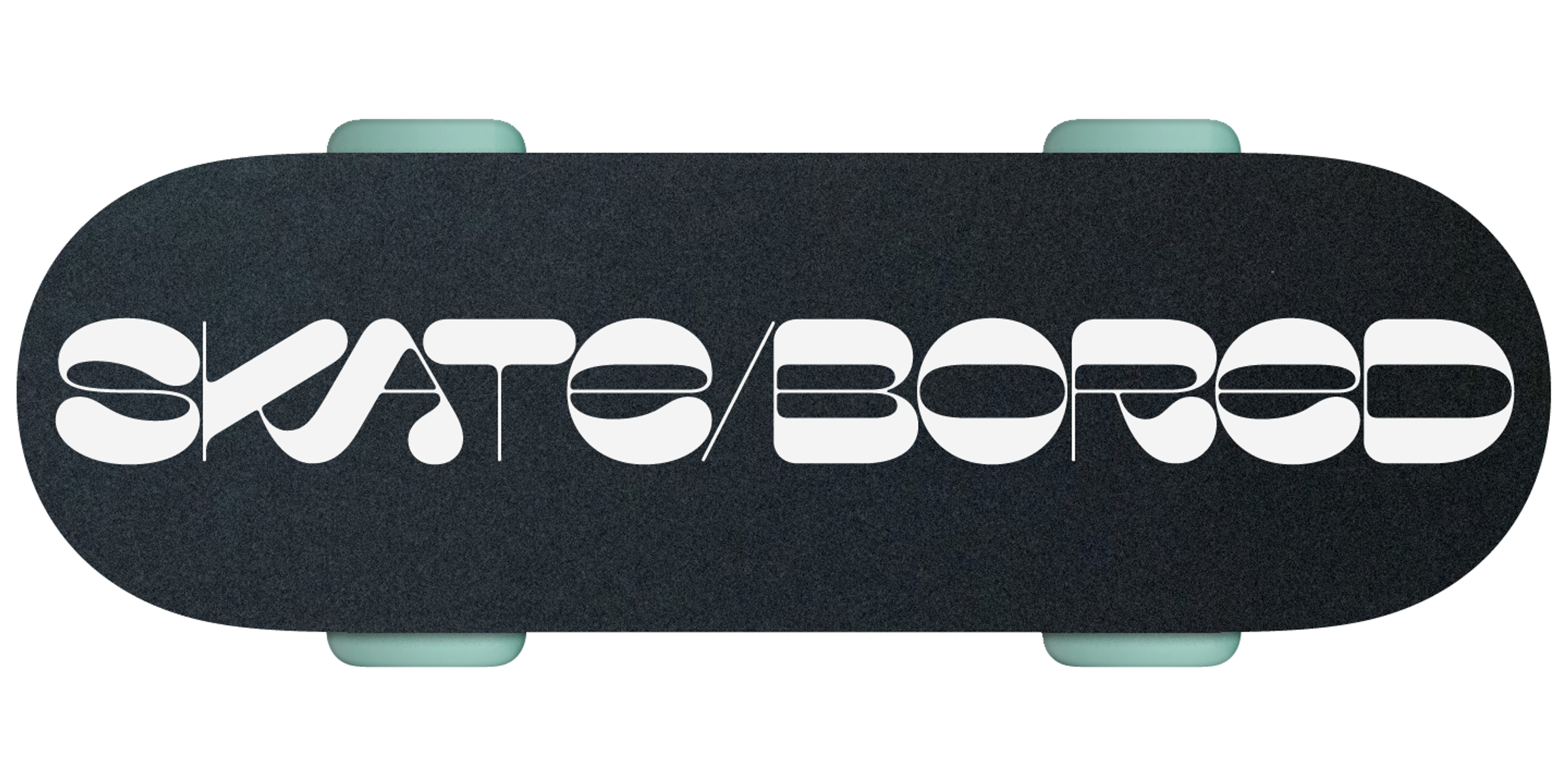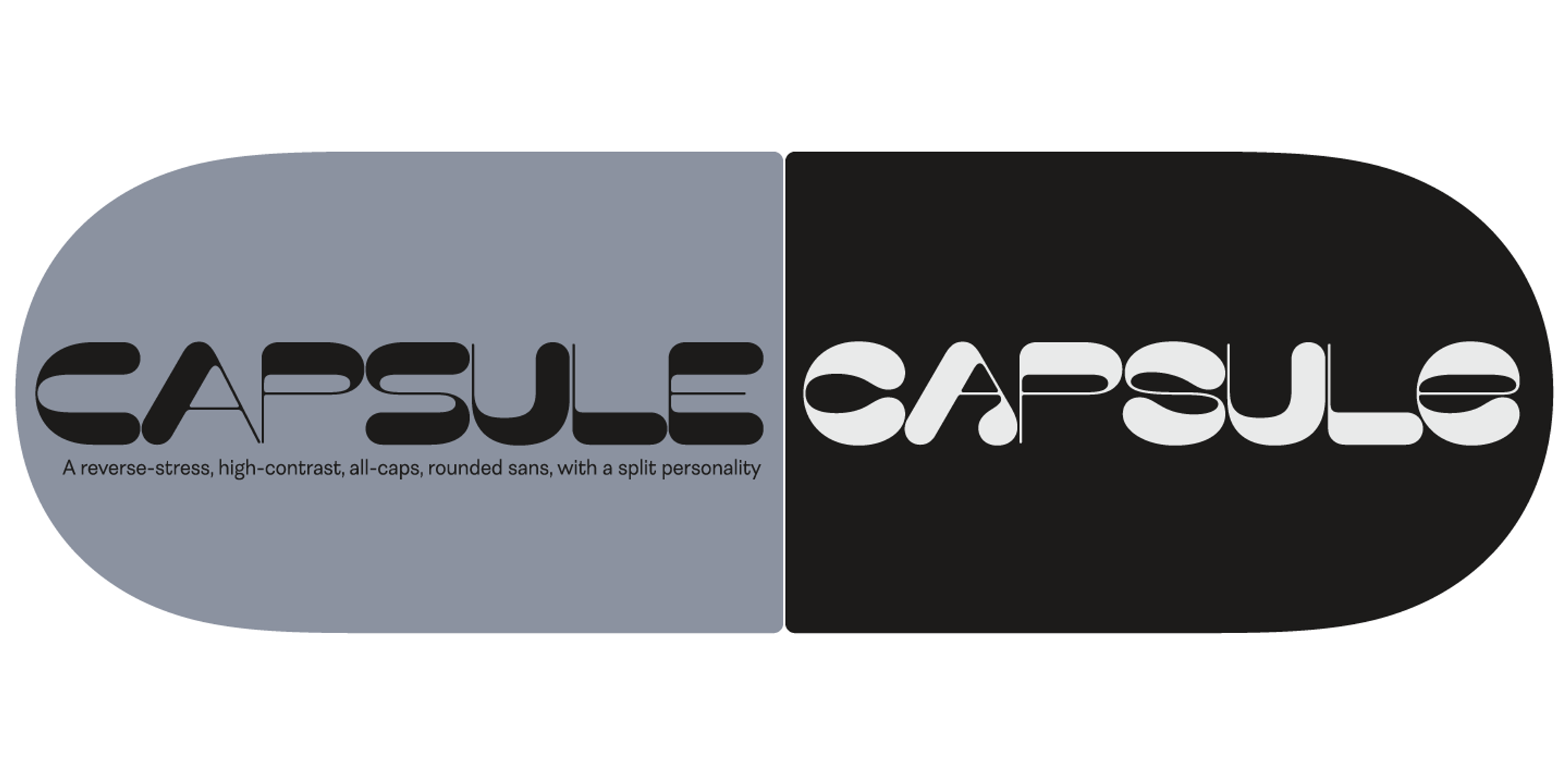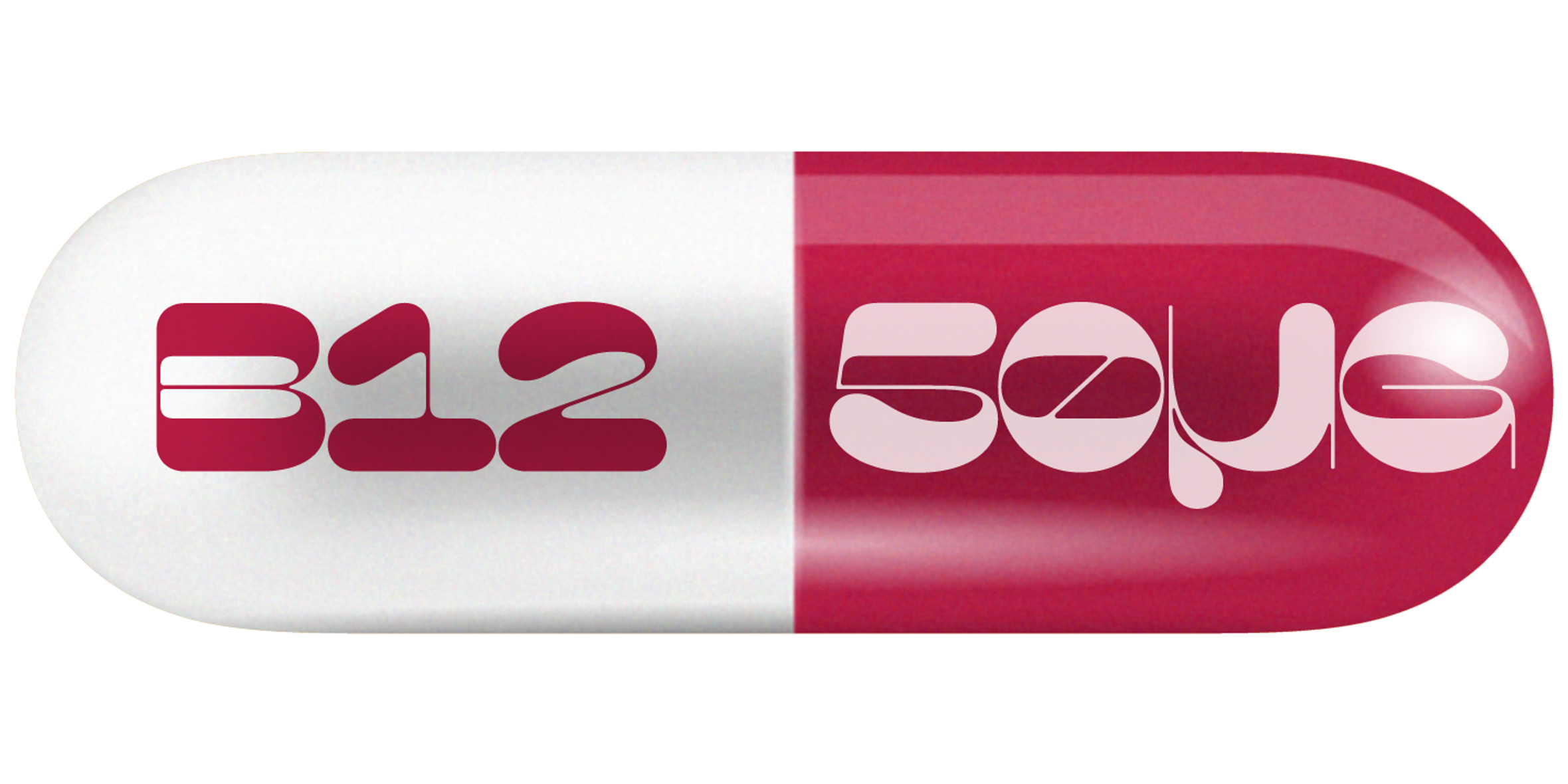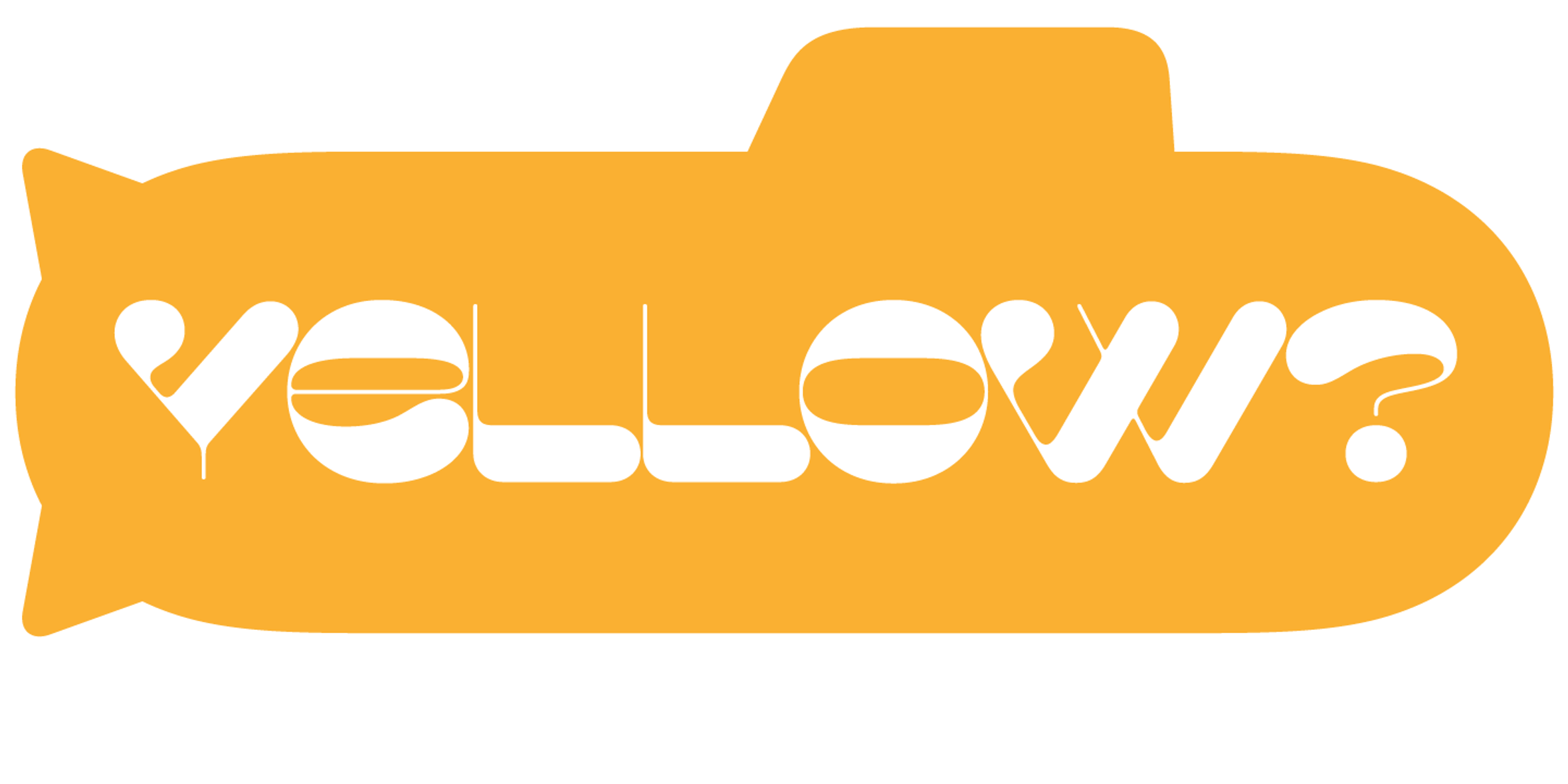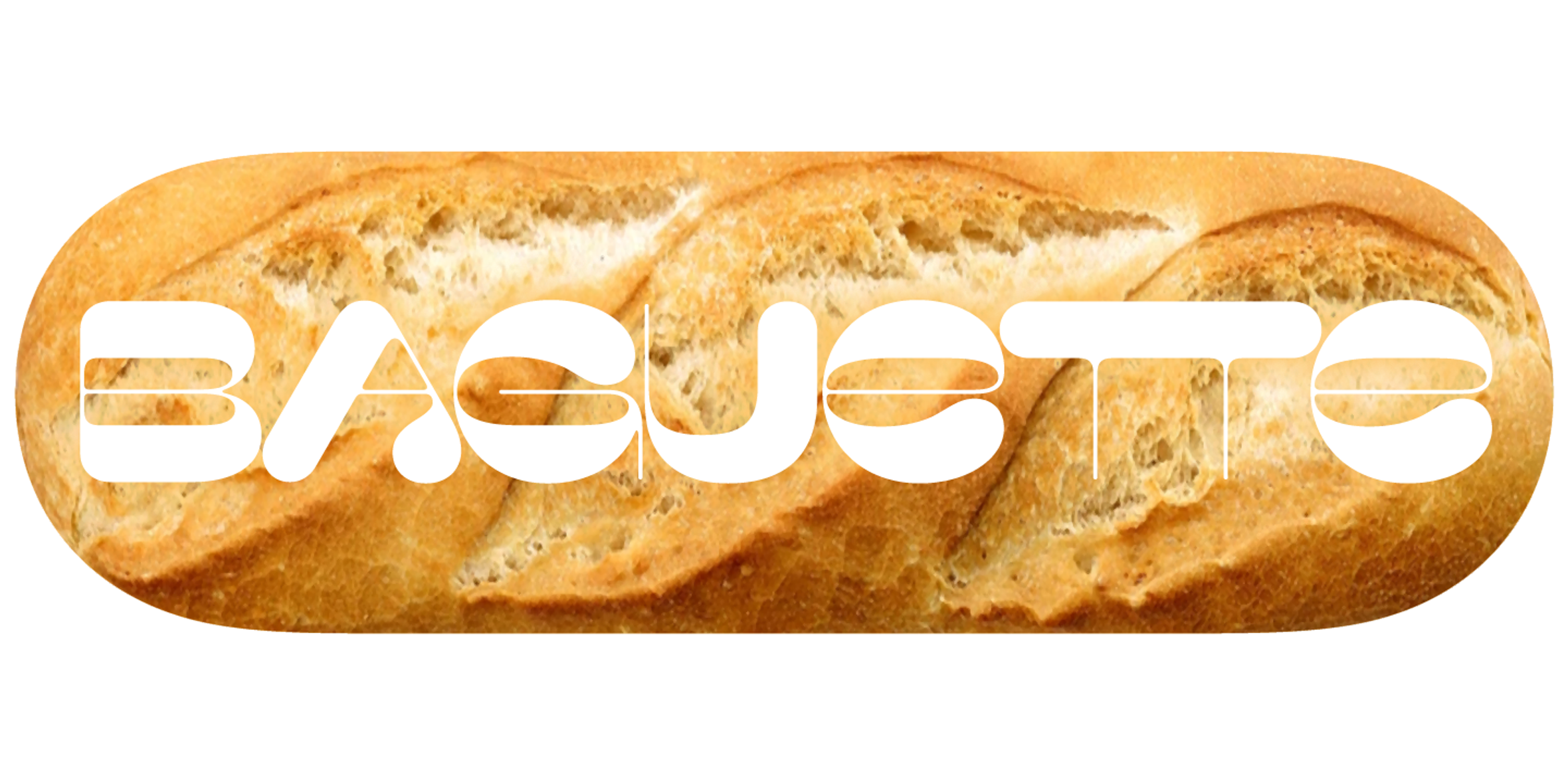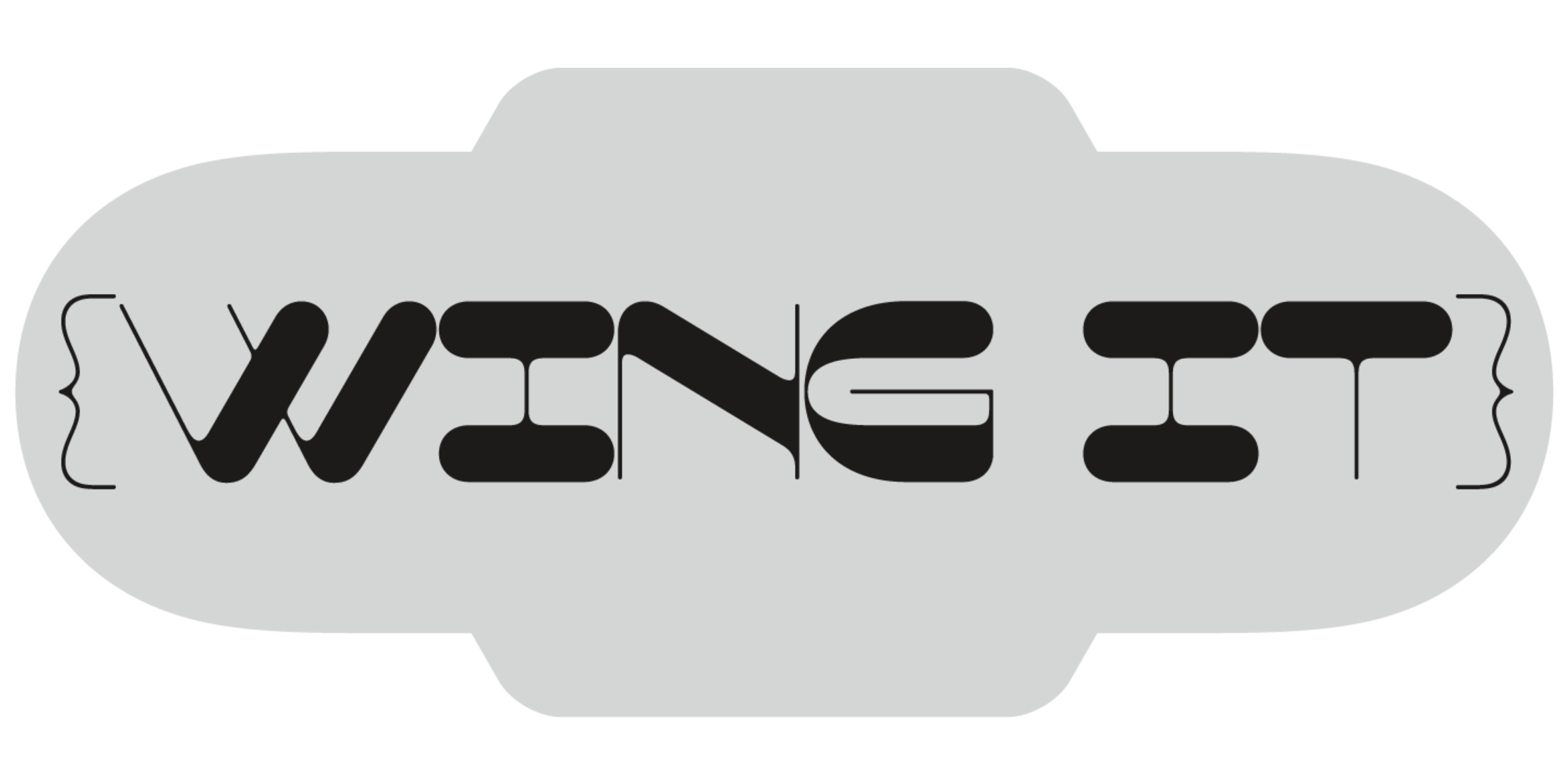
Capsule Font
Capsule
Capsule is a reverse-stress, high-contrast, rounded sans-serif font with two distinct personalities. An all-caps face with more playful variations of some letters in the lowercase slots with bulbous elements that riff on Phototype faces like Amelia and Data 70. But uppercase and lowercase all mix and match! Capsule should be set large. The fit is tight, and the kerning is aggressive. You’ll want to use it for impactful headlines, cutting-edge logos, and post-modern layouts.
- Discretionary Ligatures
- Ordinal Numerals
- Stylistic Alternates